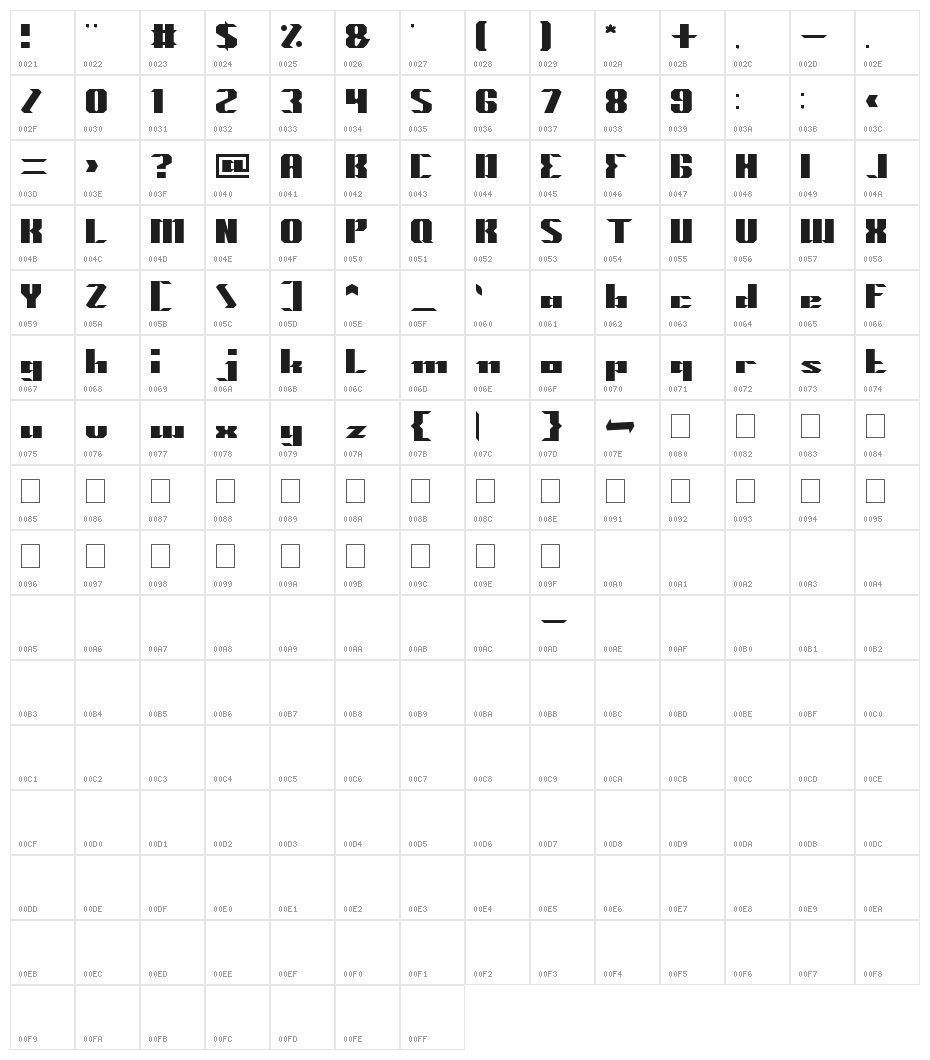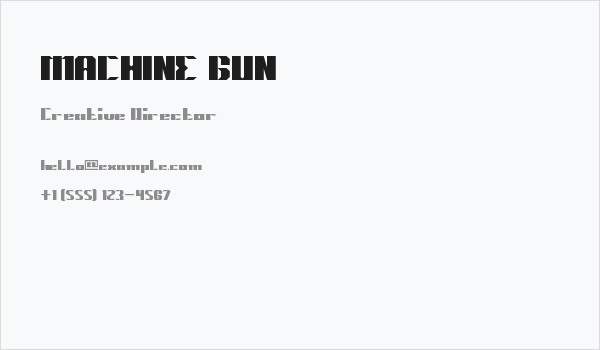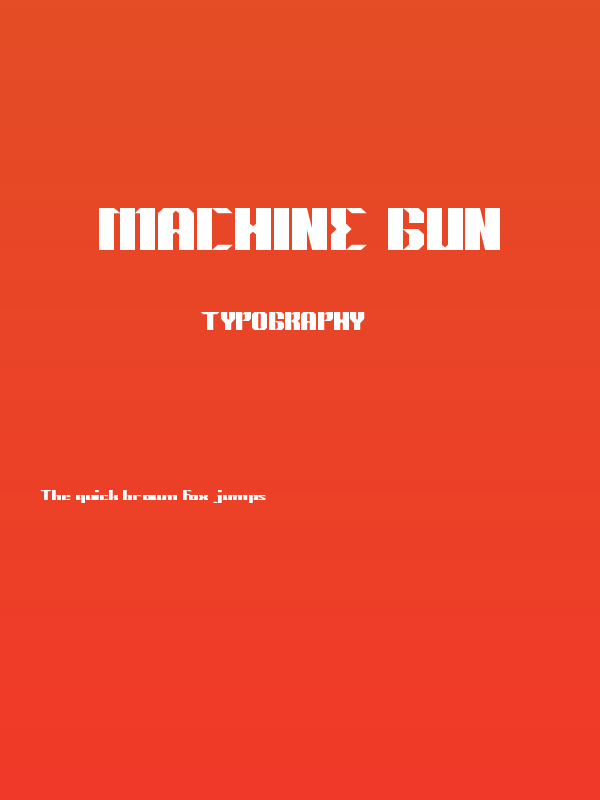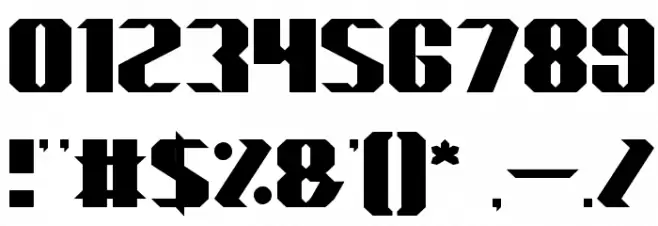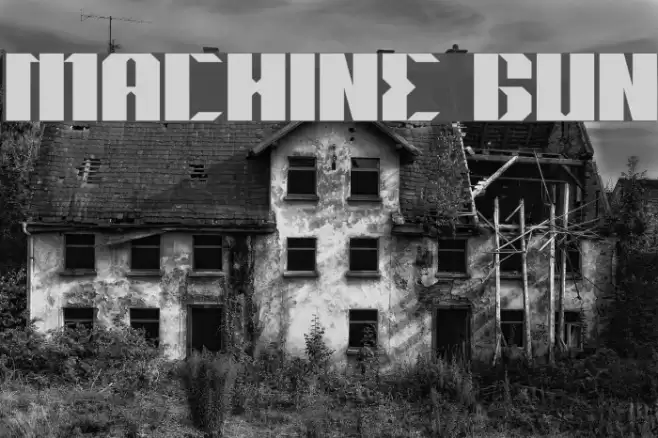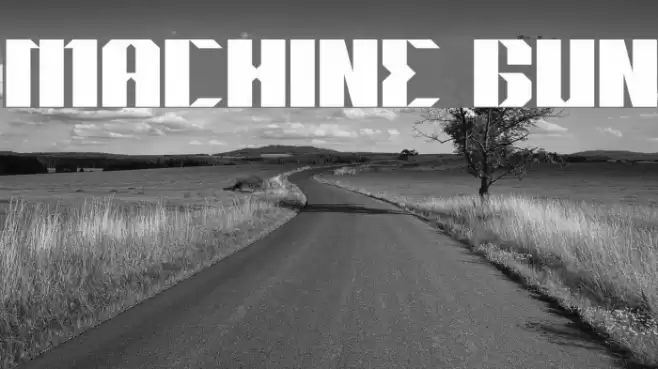
MACHINE GUN Font
This font features a bold, geometric design with sharp angles and a blocky appearance. The uppercase letters are particularly striking, with a strong, industrial feel that suggests strength and durability. The lowercase letters maintain the same angular style, creating a cohesive look across the alphabet. Numbers and special characters follow the same design principles, ensuring consistency throughout. The font's unique style makes it stand out, with a modern, edgy vibe that is both eye-catching and memorable.